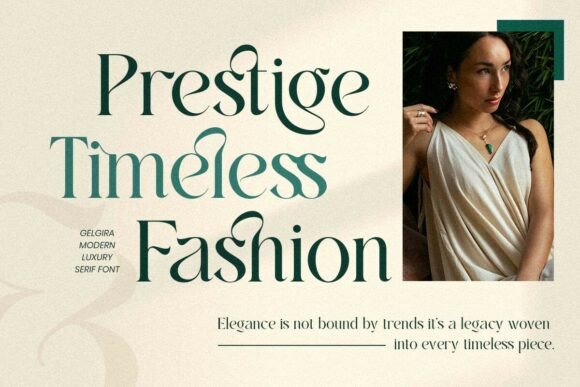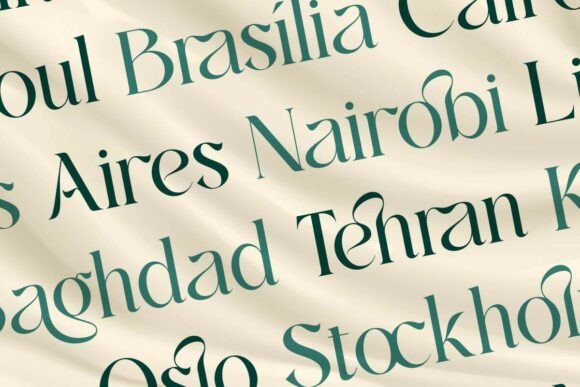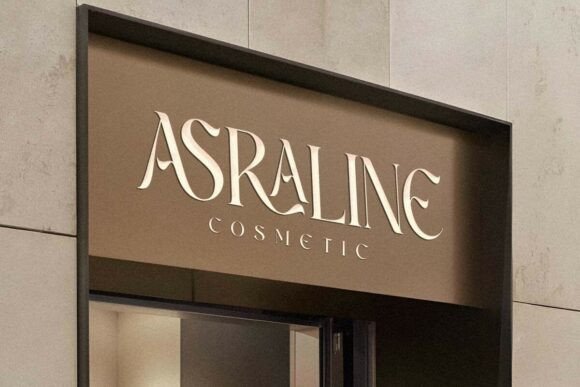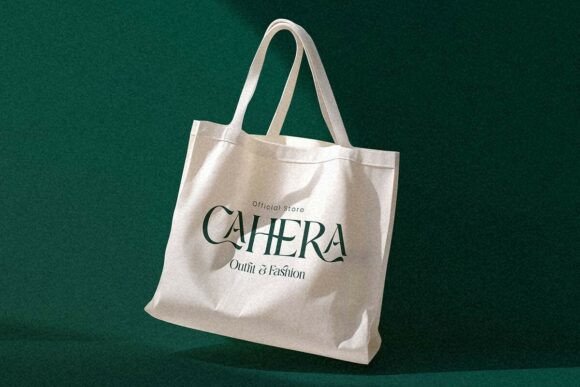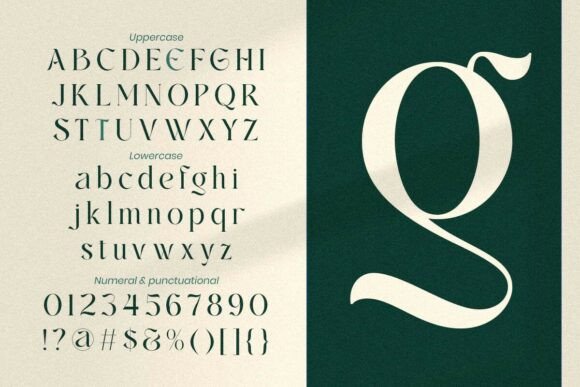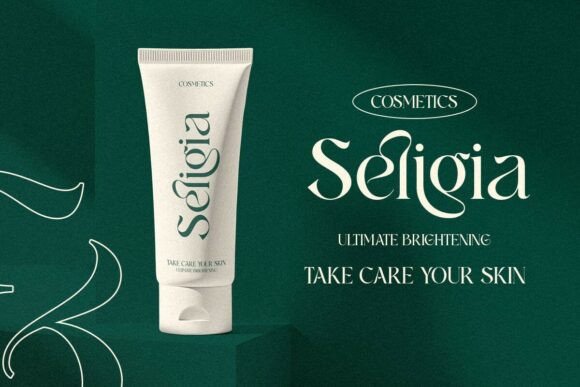
Introduction to Gelgira Font
Have you ever found yourself staring at a blank page, struggling to bring your creative vision to life? For designers, this moment can be daunting – the pressure to create something truly special, something that stands out from the crowd. But what if you had the perfect tool to help you craft your masterpiece? Enter Gelgira Font, a modern romantic serif typeface that exudes elegance and sophistication.
This stunning font is more than just a design resource – it’s a key to unlocking the full potential of your creative project. With its luxurious contrast strokes and beautiful swashes, Gelgira Font adds a touch of refined beauty to every project, making it perfect for high-end branding and editorial use. Whether you’re designing a wedding invitation, a magazine cover, or a boutique packaging, Gelgira Font is the perfect choice to elevate your work to new heights.
Key Features of Gelgira Font
- High-quality design resource ideal for creative projects, with a unique and stylish aesthetic.
- Supports a wide range of languages, making it a versatile font for global creative projects.
- Perfect for designers seeking a modern and elegant font to elevate their creative project, from logos to typography-heavy designs.
Honest Review: Gelgira Font
As a designer, I’m always on the lookout for high-quality design resources to elevate my creative projects. I recently had the chance to try out the Gelgira Font, and I’m excited to share my honest review.
What works well: ✨ I was immediately impressed by the font’s modern and sleek design. The Gelgira Font is perfect for anyone looking to add a touch of sophistication to their creative project. I love that it’s available for free download, making it an excellent resource for designers on a budget.
One of the standout features of the Gelgira Font is its transparent background. This allows for seamless integration with any design element, making it incredibly versatile.
- Modern and sleek design
Limitations: ⚠️ While the Gelgira Font is a great addition to any designer’s toolkit, I did notice that it can be a bit too thin in some instances. This may require some additional tweaking to get the desired look.
Overall, I’m impressed with the Gelgira Font. It’s a high-quality design resource that’s perfect for anyone looking to add a touch of elegance to their creative project. Whether you’re working on a logo, brochure, or website, the Gelgira Font is definitely worth checking out.